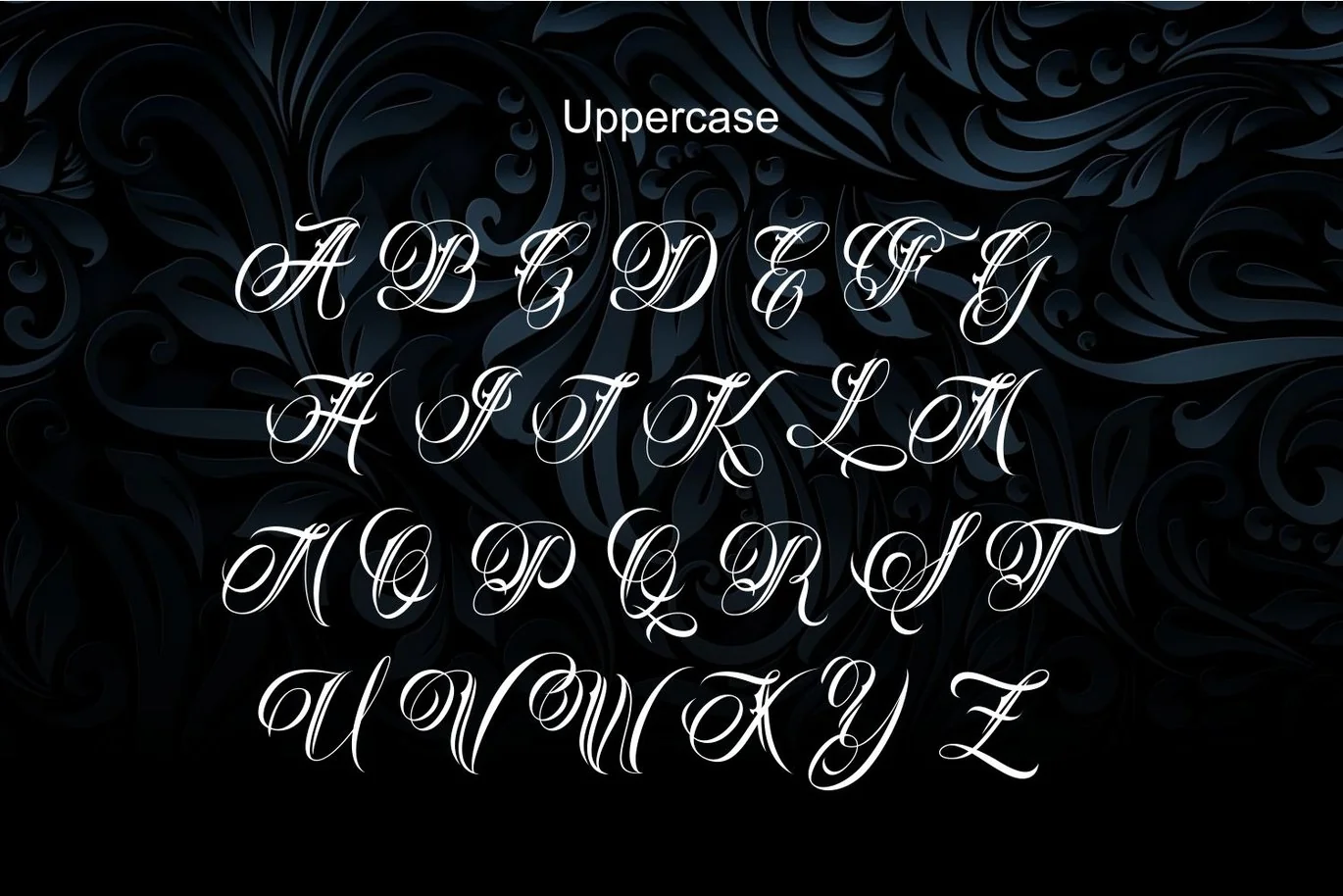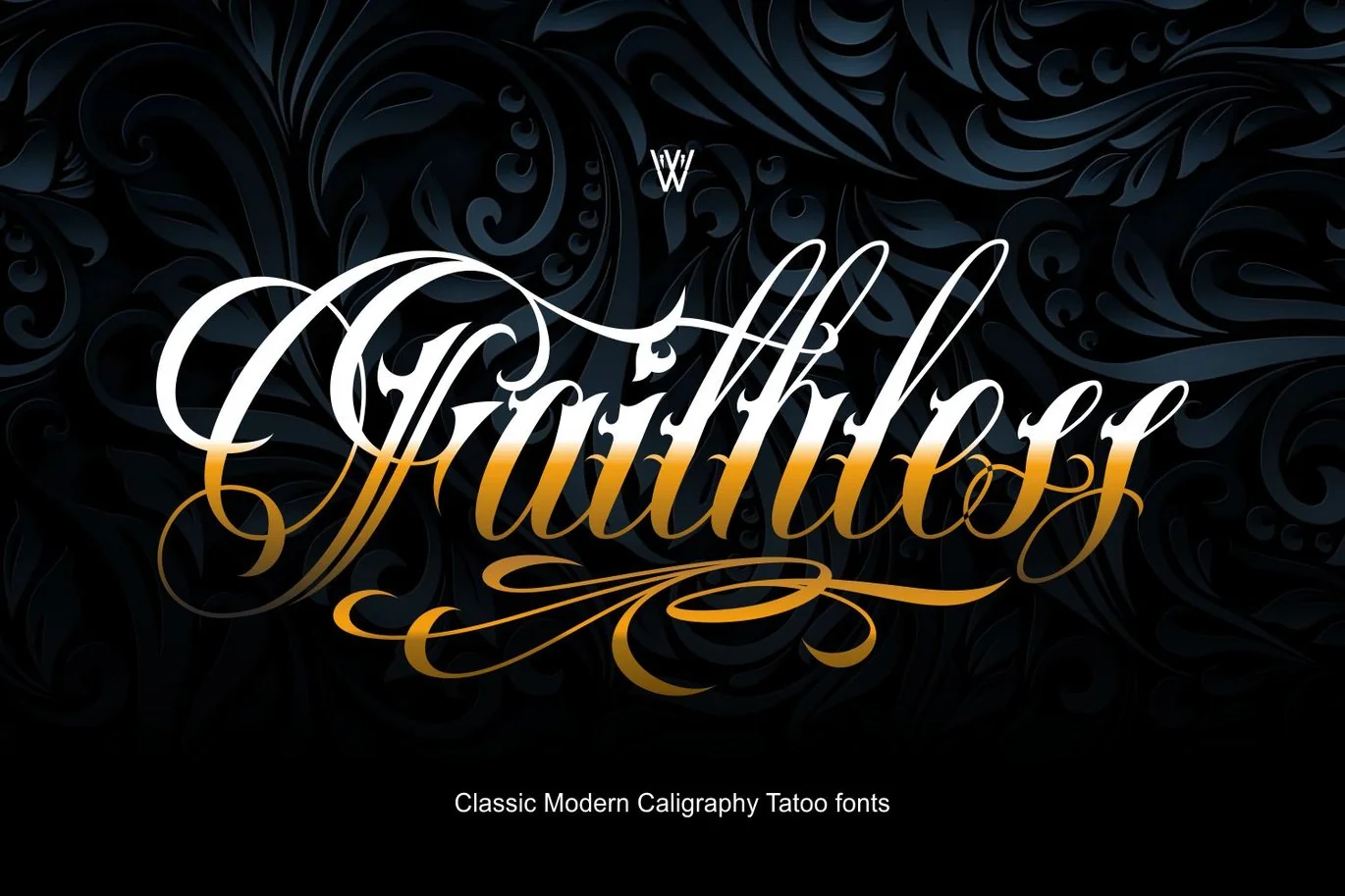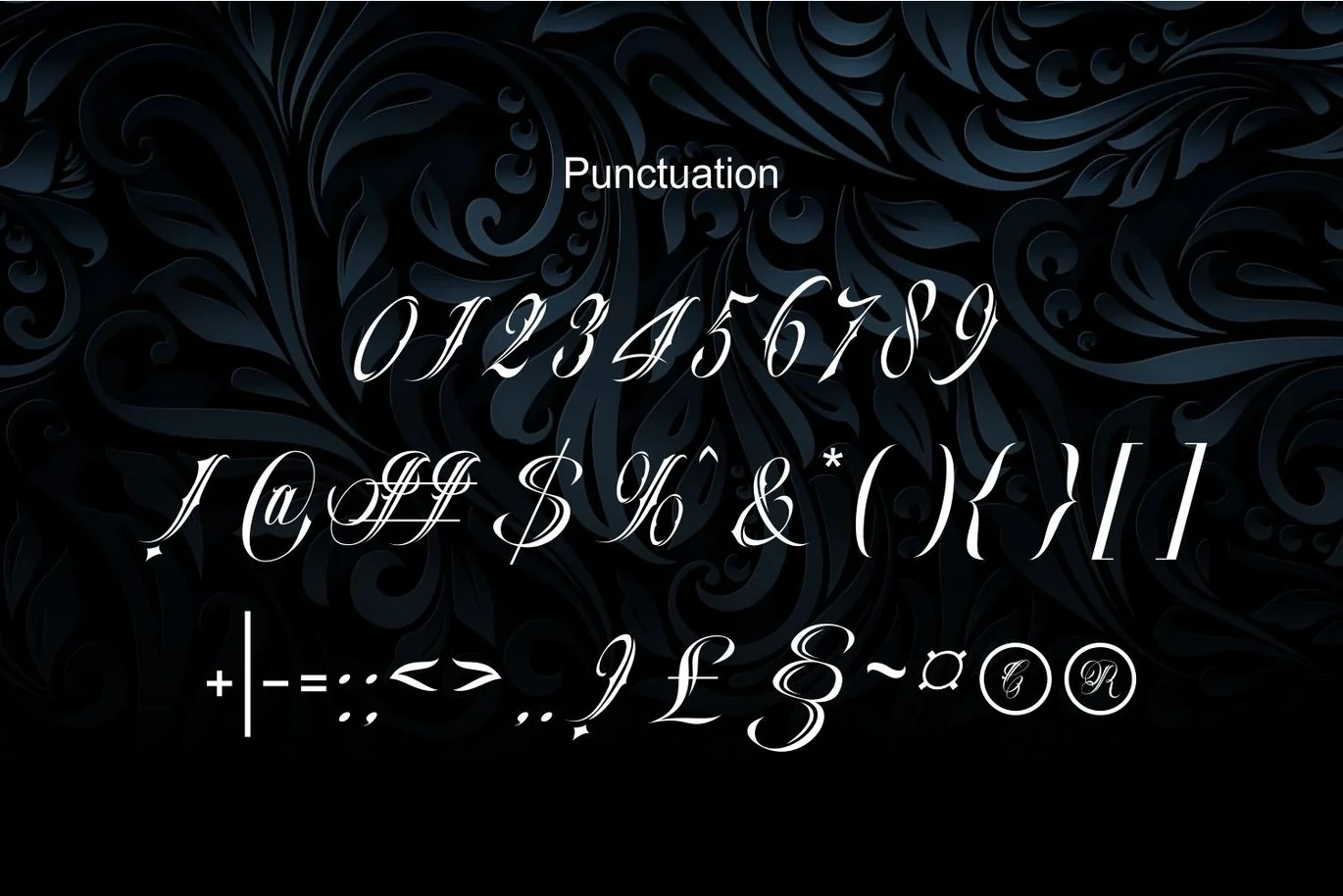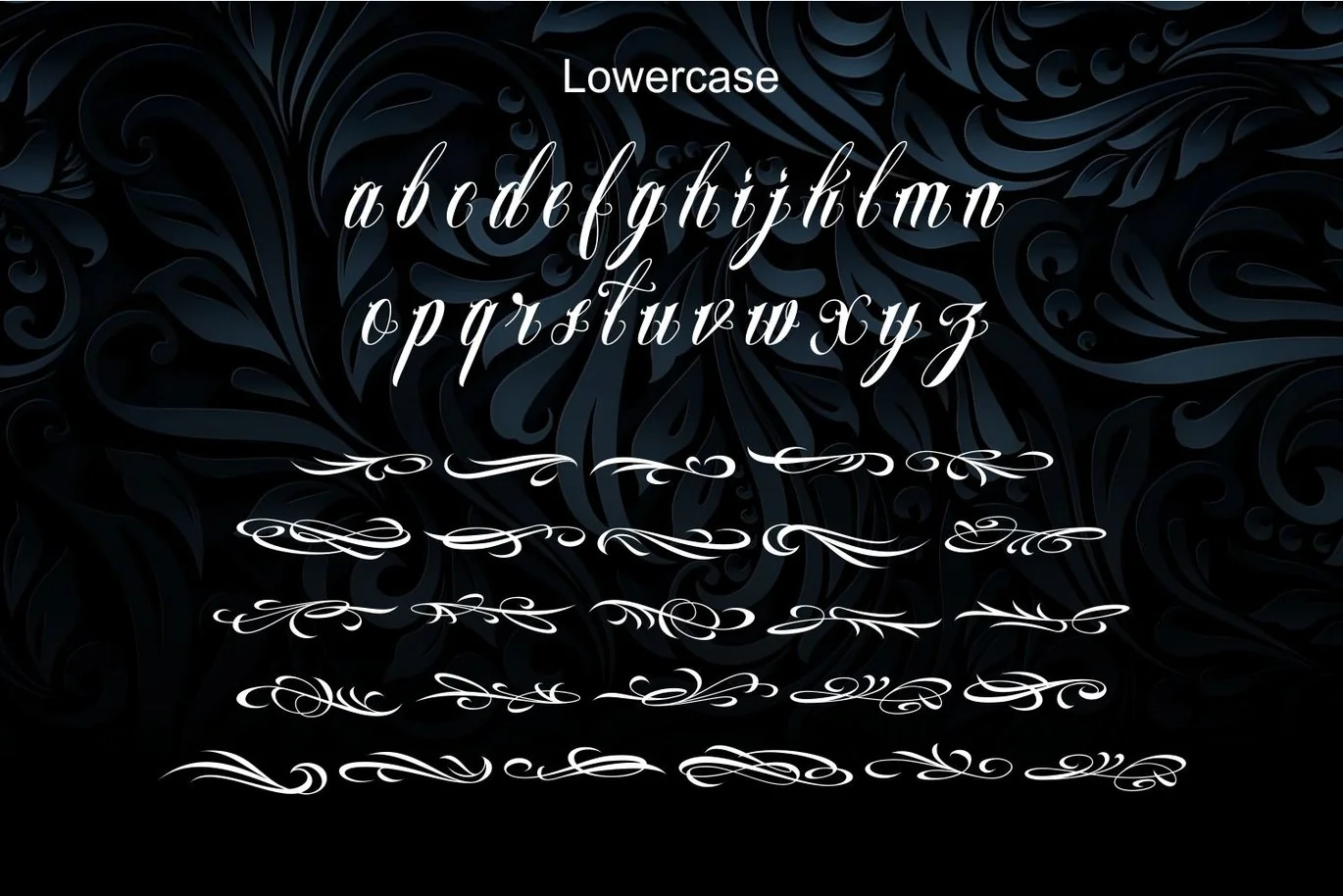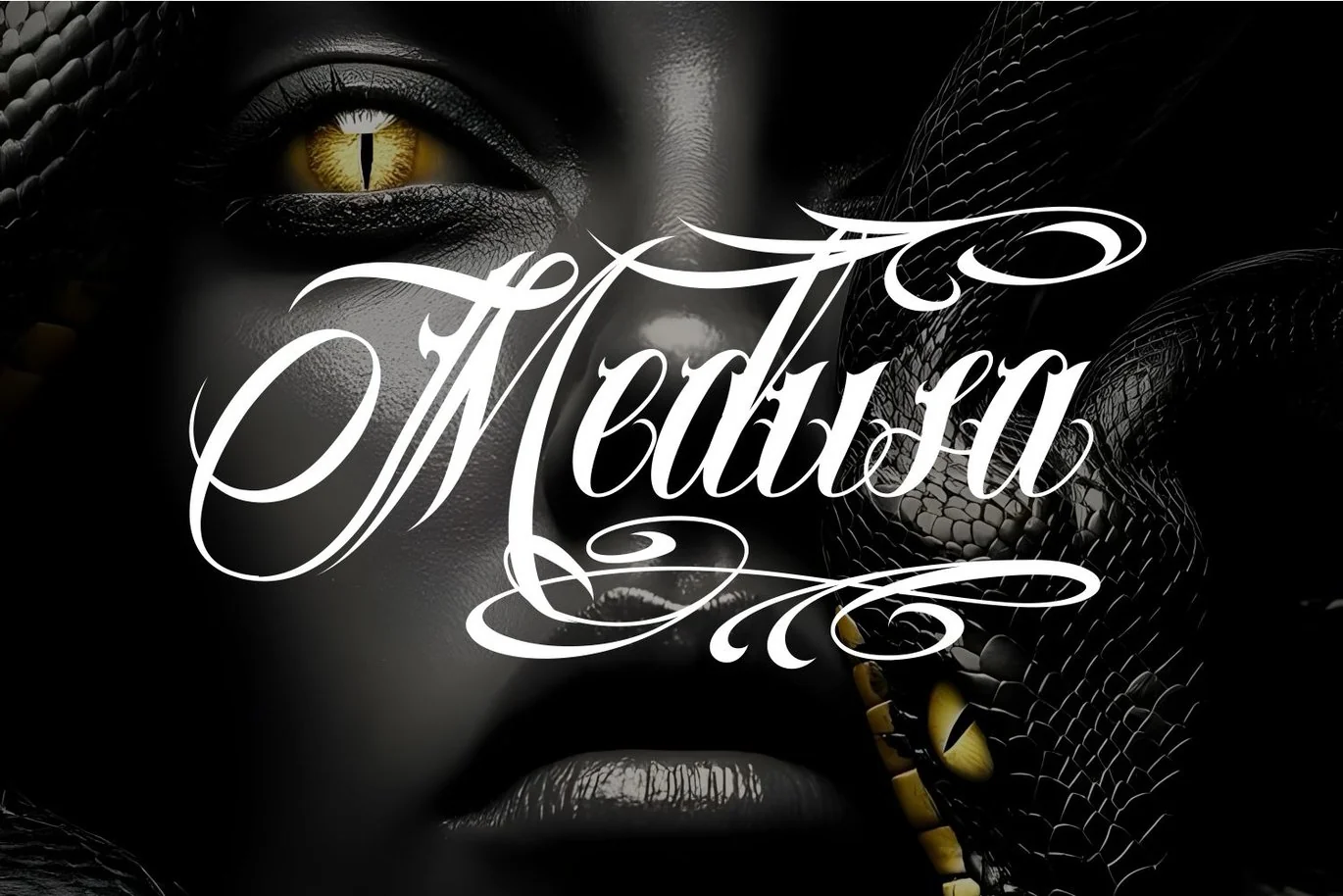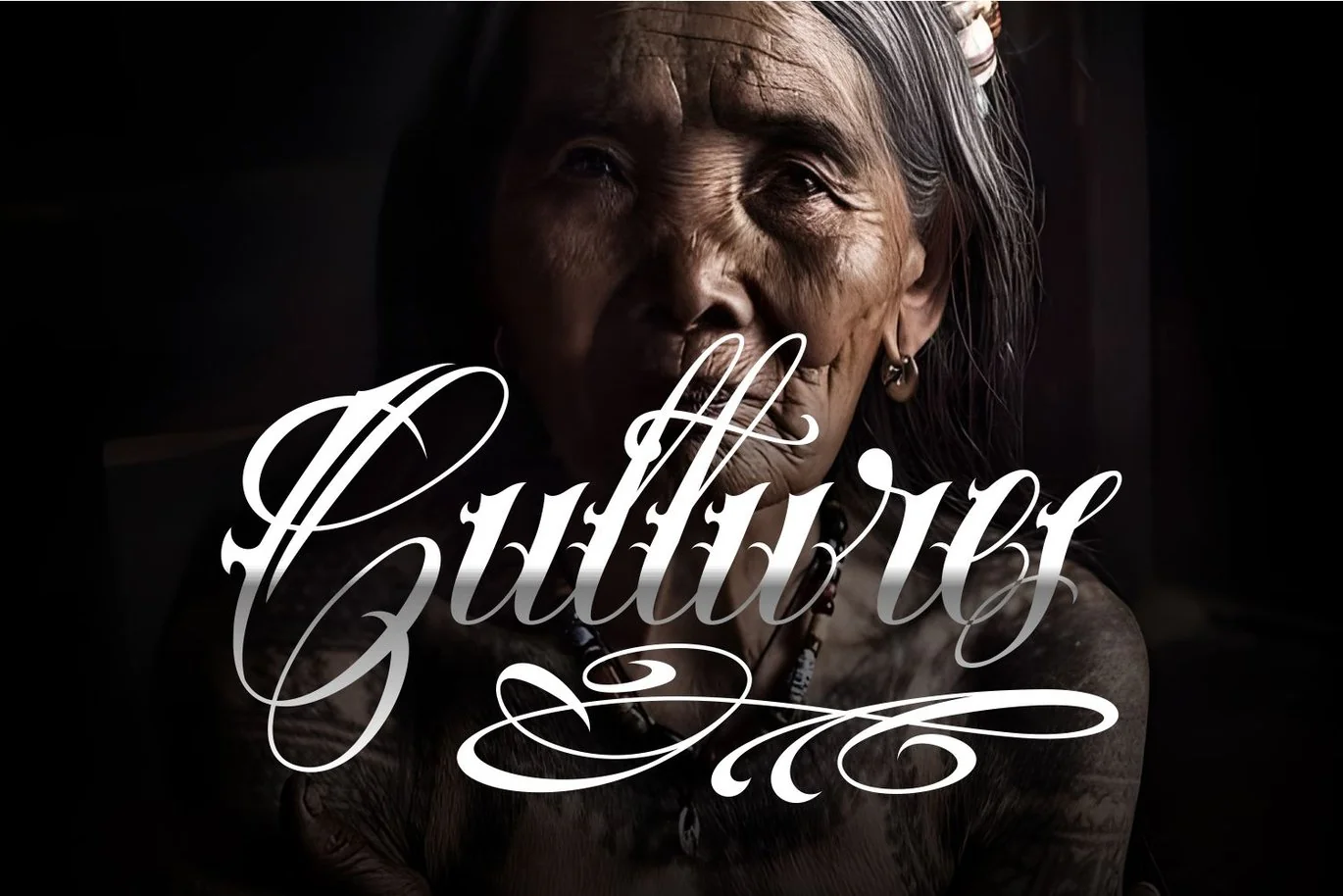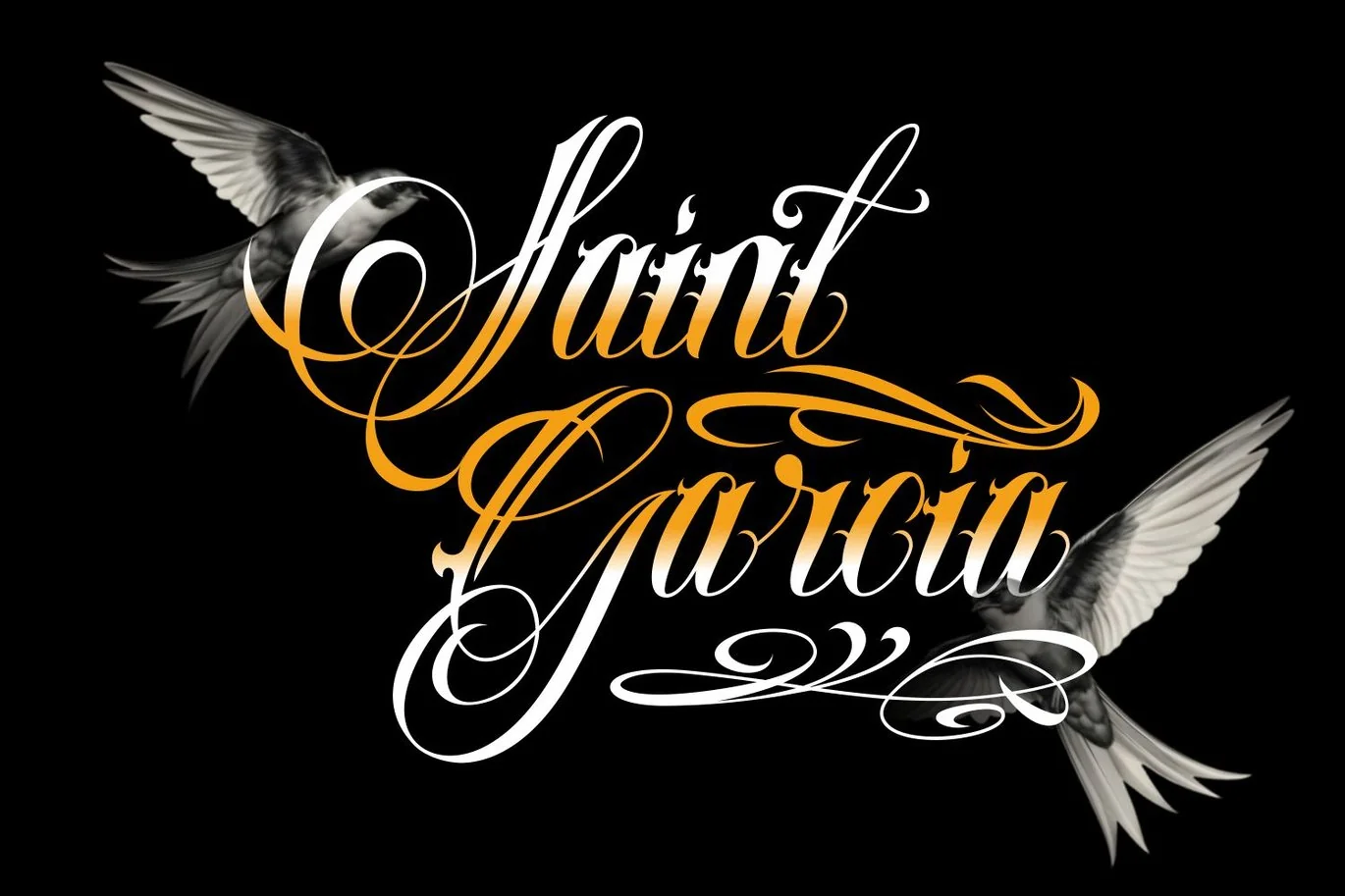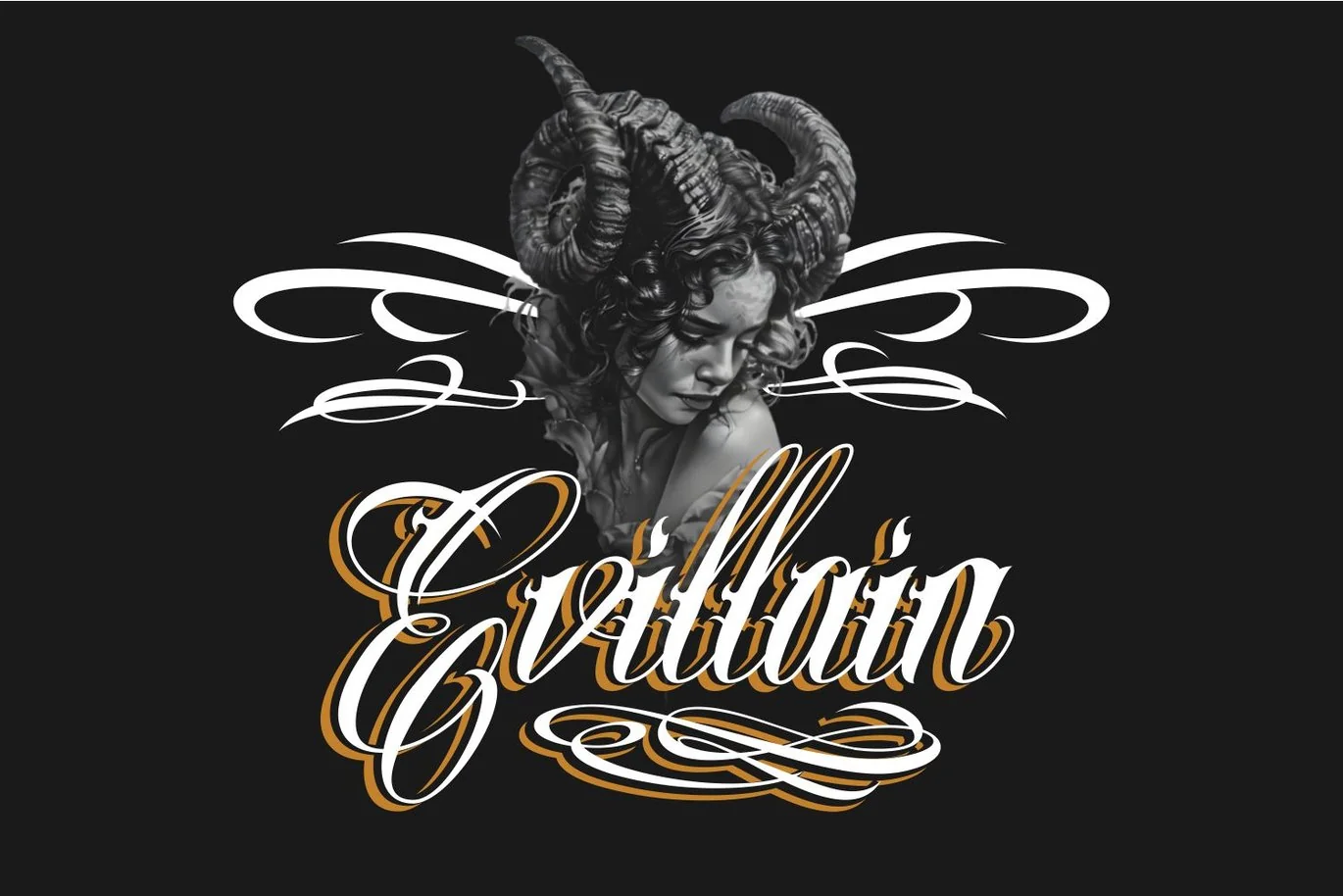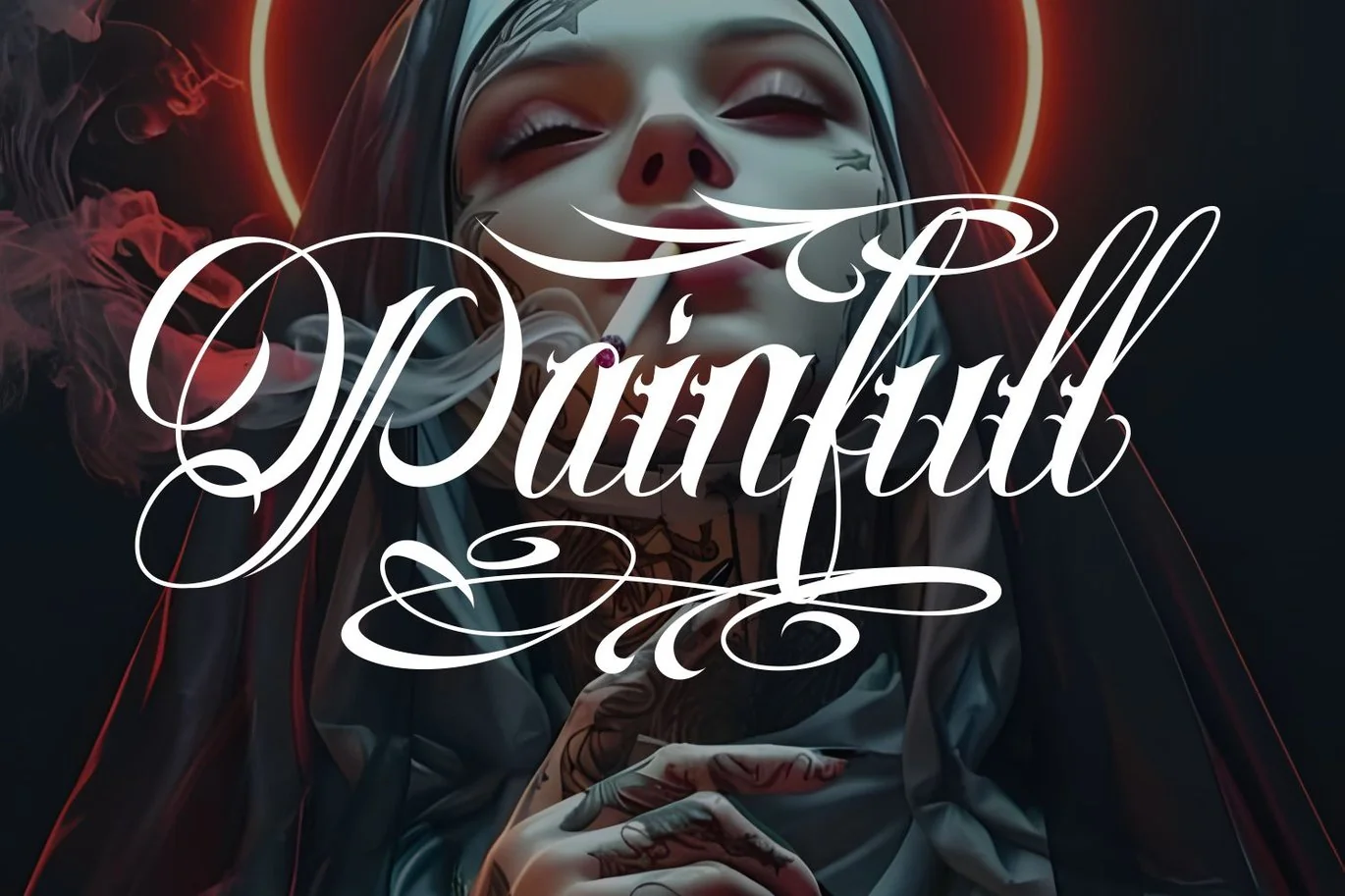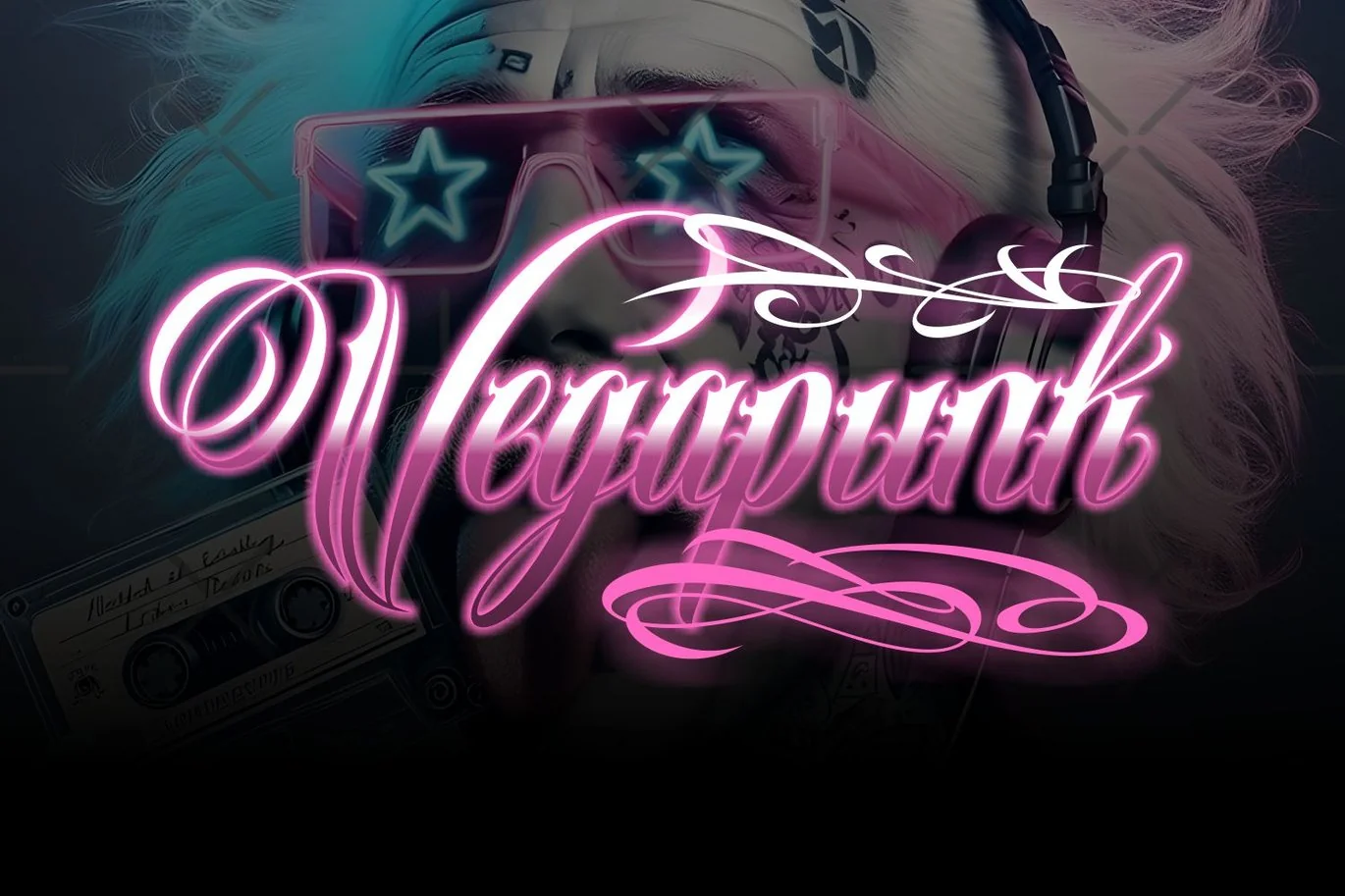
Faithless Chicano Tattoo Font | Chicacano Styles
Elevate your design projects with our “Faithless Chicano Tattoo Font | Blackletter, Chicano, Old English Fonts | Procreate & Photoshop Ready | Perfect for Custom Tattoos”, meticulously crafted for artists and designers seeking authentic tattoo-inspired typography. This collection features a diverse range of blackletter calligraphy fonts, perfect for custom tattoo designs, logos.
✅ High-quality tattoo-style fonts
✅ Ideal for custom tattoos, logos, and apparel designs
Transform your creative projects with this exclusive font bundle and bring an authentic tattoo aesthetic to your designs.